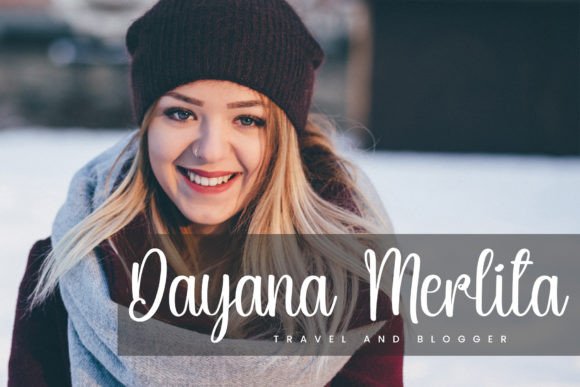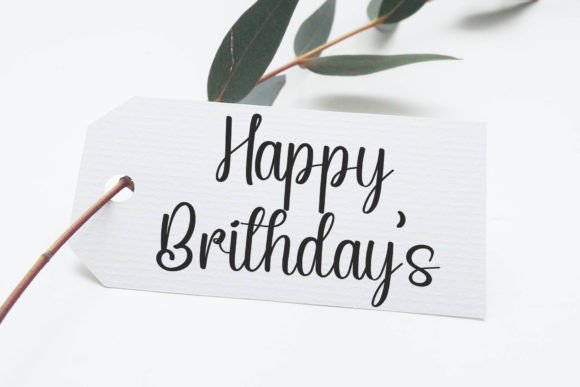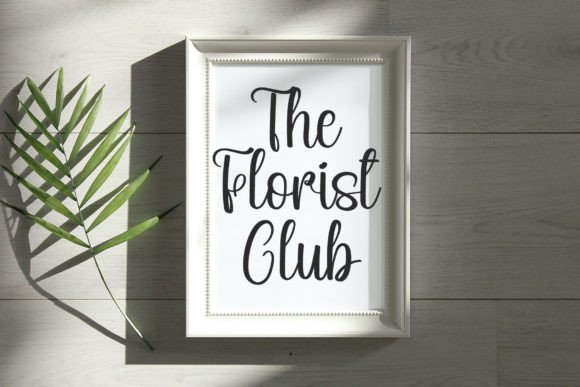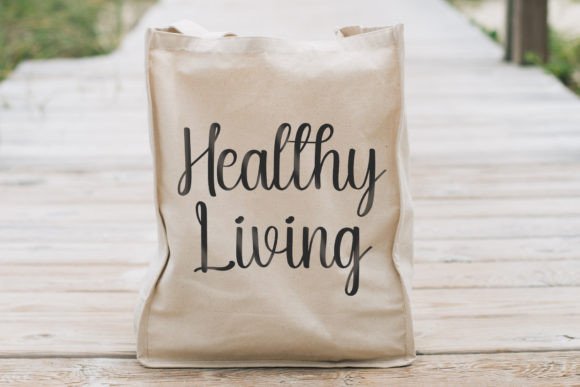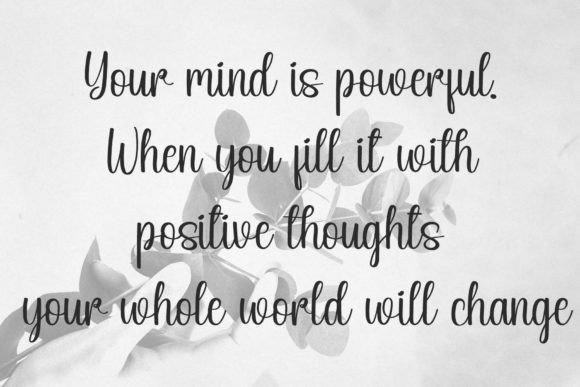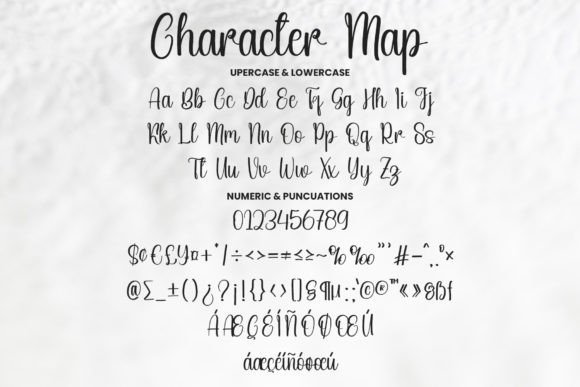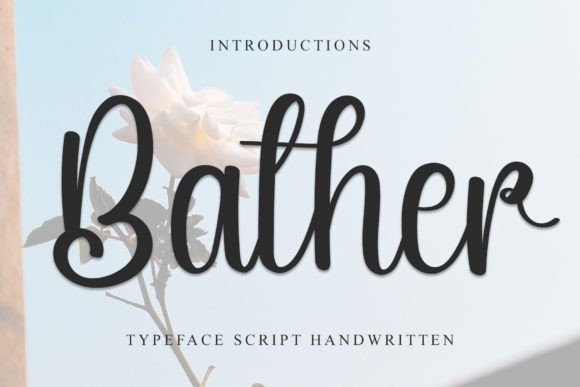
Bather Font: The Ultimate Handwritten Font for Creative Projects
Are you a designer, crafter, or DIY enthusiast looking for a font that can add a touch of warmth and personality to your projects? Look no further than the Bather Font! This sweet, all-round, and flexible handwritten font is perfect for turning your project ideas into real works of art.
What Makes Bather Font So Special?
Bather Font is a unique and charming font that is designed to bring a sense of joy and playfulness to your designs. Its warm, romantic, and jolly feel makes it perfect for a wide range of projects, from wedding invitations and greeting cards to branding and packaging.
One of the standout features of Bather Font is its flexibility. Whether you’re looking to create a bold and eye-catching design or a more subtle and understated one, this font can adapt to your needs. Its versatility makes it an excellent choice for designers and crafters who want to add a personal touch to their work.
Bather Font is PUA (Private Use Area) encoded, which means that you can access all of the glyphs and swashes with ease. This encoding allows you to unlock the full potential of the font and use it in a variety of creative ways.
With PUA encoding, you can easily access alternative characters, ligatures, and swashes to add a touch of elegance and sophistication to your designs. This feature makes Bather Font perfect for designers who want to create unique and eye-catching typography.
Bather Font is an excellent choice for designers and crafters who want to add a personal touch to their work. Whether you’re creating digital designs or handmade crafts, this font can help you to stand out from the crowd.
Designers can use Bather Font to create stunning branding and packaging designs, while crafters can use it to add a touch of personality to their handmade projects, such as wedding invitations, gift tags, and cards.
Tips for Using Bather Font
Here are a few tips for using Bather Font in your designs:
- Experiment with different font sizes and colors to add depth and interest to your designs.
- Use the glyphs and swashes to add a touch of elegance and sophistication to your typography.
- Combine Bather Font with other fonts to create a unique and eye-catching design.
- Don’t be afraid to get creative and try out new and innovative ways of using the font.
Bather Font is a sweet, all-round, and flexible handwritten font that is perfect for designers and crafters who want to add a touch of warmth and personality to their projects. With its PUA encoding and range of glyphs and swashes, this font is sure to turn your project ideas into real works of art.
So why not give Bather Font a try? With its warm, romantic, and jolly feel, it’s the perfect choice for anyone looking to add a personal touch to their designs.